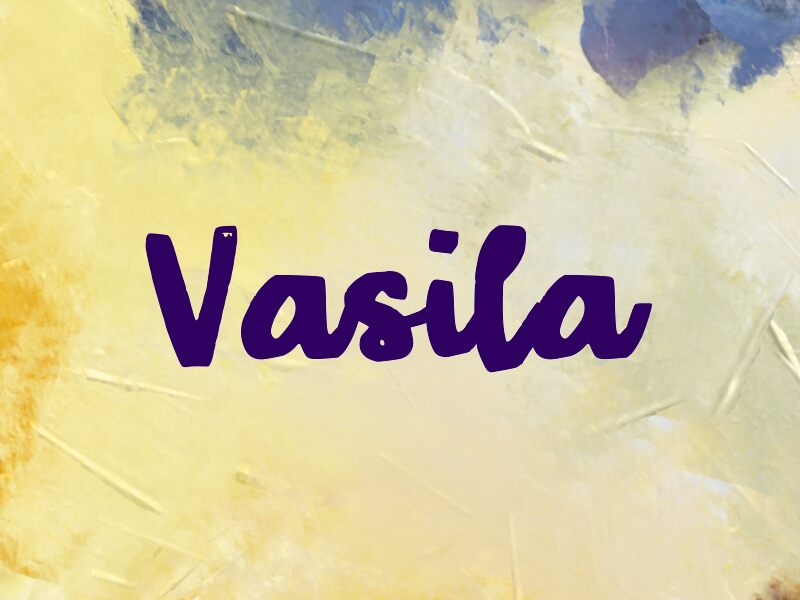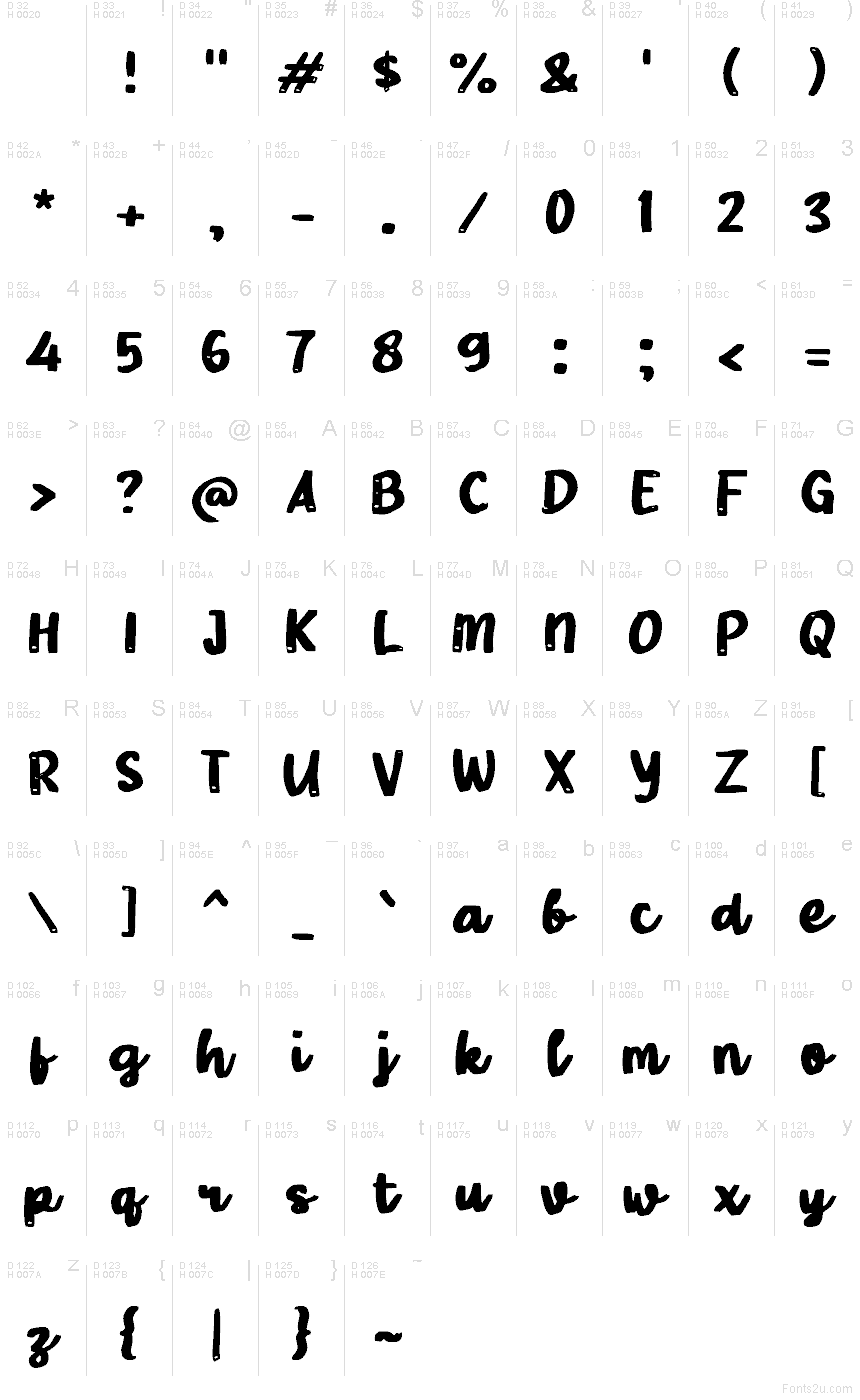
Vasila
Vasila font by wepfont.com is a free brush font that looks like it’s been painted in one confident, inky sweep. Thick, velvety strokes and loose, handwritten curves give it a friendly boldness, as if the letters were pulled straight from a marker on cardboard or a chalkboard sign. There’s a slight wobble and texture in the forms that keeps it warm and human, not too polished or precious.
Using Vasila, this free font shines on logo wordmarks, packaging labels, bold poster titles, café menus, social media graphics, and merch like tote bags or T‑shirts. Its dense, dark shapes hold up beautifully at larger sizes where the brush texture can really show. Pair it with a clean, light sans serif for supporting text to let Vasila carry the main message without visual clutter.